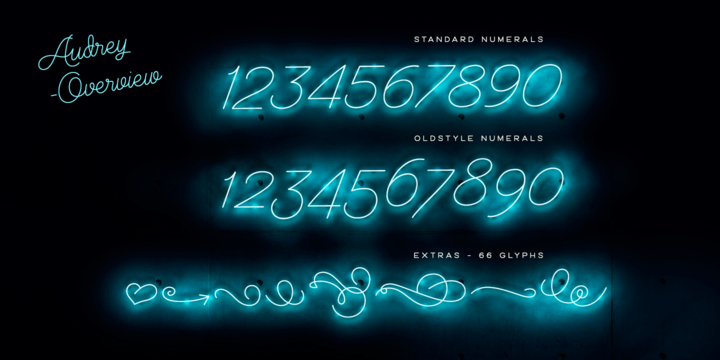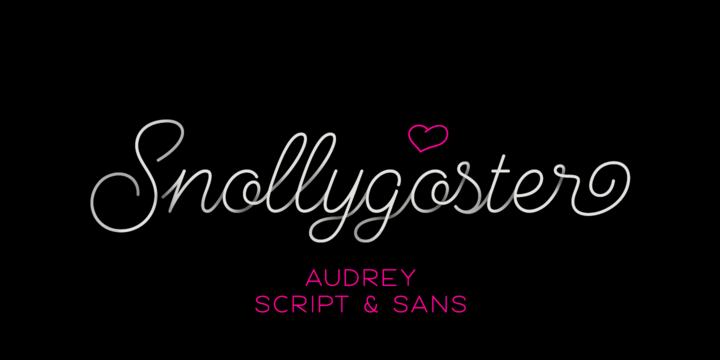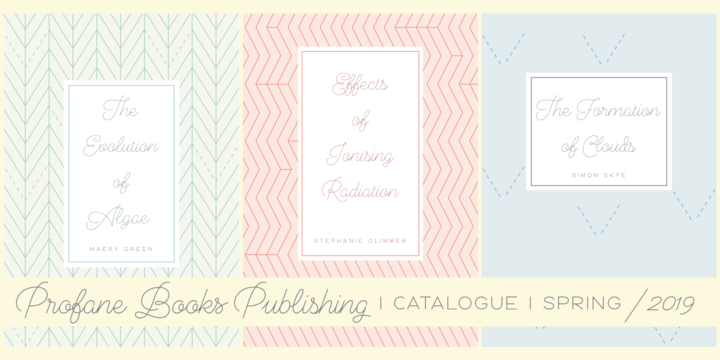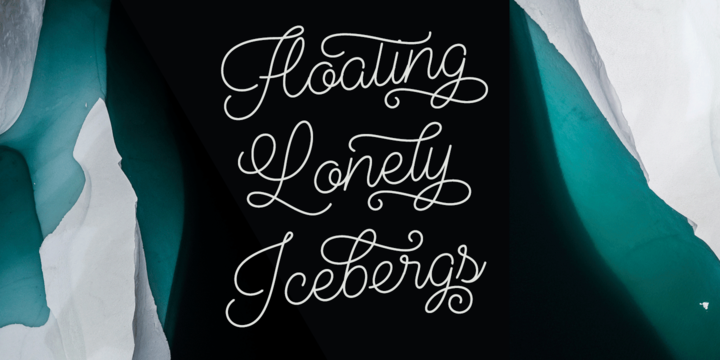
Audrey Font Family
About this font family
Audrey is an elegant monolinear Script and Sans font family. Audrey is great for designing headlines, packaging or as a logotype online or offline.
Audrey has three weights of Script and Sans and a set of Ornaments. The weights go following: Regular is twice and Bold is three times as wide as Thin so if you want to have an Ornament example with same stroke width as Script you can set the Script in 36pt Regular and Ornament 72pt Thin -and they’ll have exactly the same width